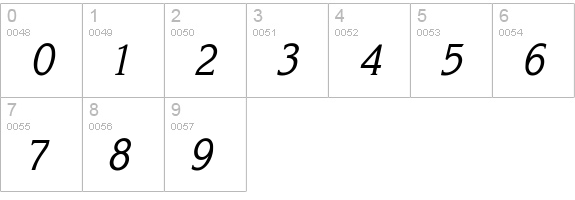
Keira Condensed Italic is a distinctive, condensed-width, italic variant in the Keira typeface family \xE2\x80\x94 well suited to design and typography projects.
Introducing Keira Condensed Italic, a sleek and modern font that effortlessly combines elegance with a touch of playfulness. Designed to captivate and inspire, this typeface is perfect for adding a touch of sophistication to any project. With its condensed form and captivating italicized slant, Keira Condensed Italic stands out as a unique and eye-catching font. Its clean lines and balanced proportions make it versatile and adaptable to a wide range of design styles, from sleek and minimalist to bold and artistic. But what truly sets Keira Condensed Italic apart is its availability for free. Yes, you read that right – this stunning font is freely available to download at FontsMarket.com. Whether you're a professional designer, a passionate hobbyist, or simply someone looking to enhance their personal projects, Keira Condensed Italic is ready to elevate your creations without costing you a cent. So why wait? Discover the beauty and versatility of Keira Condensed Italic today. Download this impressive font from FontsMarket.com and unlock a world of design possibilities. Whether you're designing logos, creating branding materials, or crafting eye-catching social media posts, Keira Condensed Italic will be your trusty companion, effortlessly adding a touch of elegance and style to your work. With its freely available download, Keira Condensed Italic invites you to unleash your creativity, explore new design horizons, and bring your visions to life. Don't miss out on this incredible opportunity to access a high-quality font that is not only visually stunning but also completely free. Download Keira Condensed Italic now and let your imagination soar.